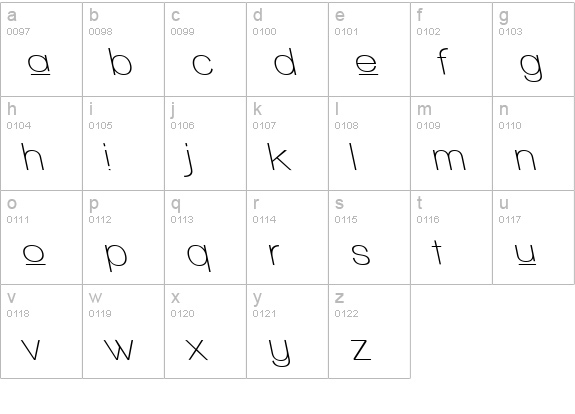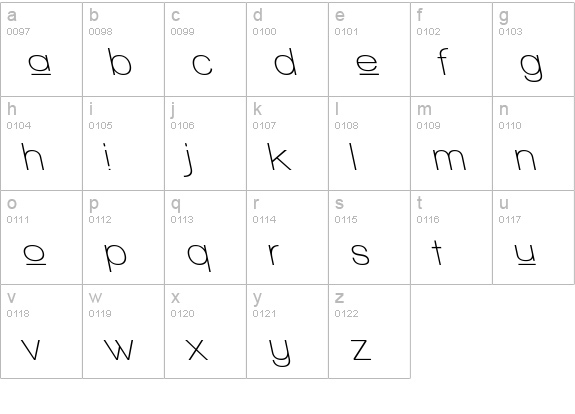
Walkway Upper SemiBold RevObl is a sub-bold, structured variant in the Walkway typeface family \xE2\x80\x94 well suited to sub-headlines and emphasised passages.
Introducing Walkway Upper SemiBold RevObl font, a modern and stylish typeface perfect for making a bold statement in your designs. This font features a unique blend of sleek lines and sharp edges, giving it a contemporary and eye-catching look. With its semi-bold weight and revolved oblique style, Walkway Upper SemiBold RevObl font is sure to grab attention and add a touch of sophistication to any project. And the best part? This stunning font is available for free download at FontsMarket.com. Whether you're working on a branding project, poster design, or website layout, Walkway Upper SemiBold RevObl font is a versatile choice that will help elevate your work to the next level. Don't miss out on the opportunity to enhance your designs with this exceptional font - download it today and see the difference it can make!